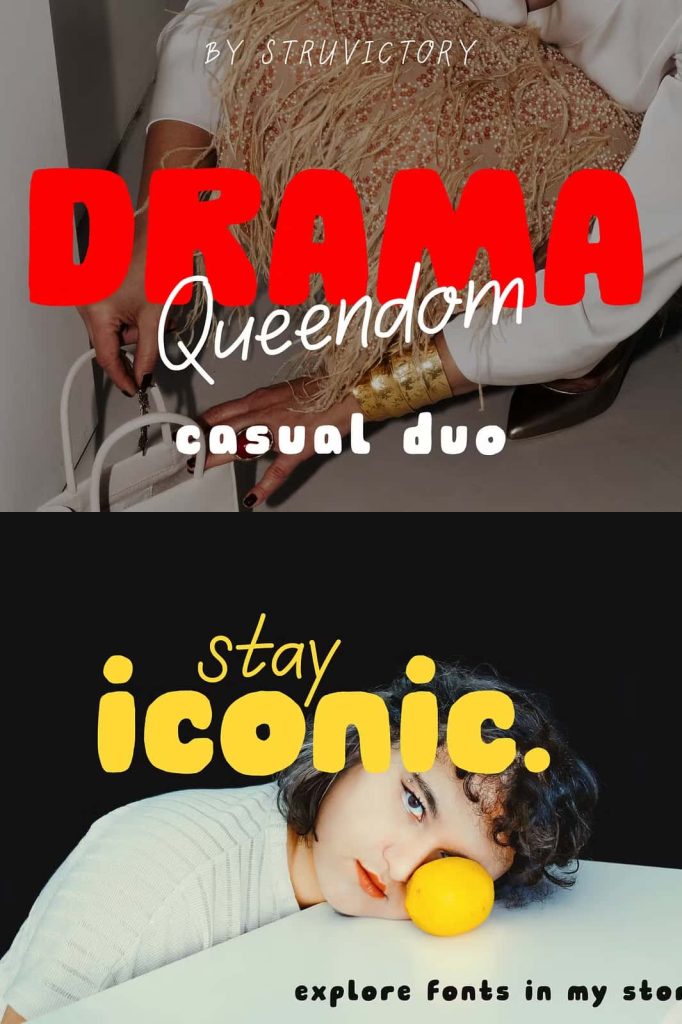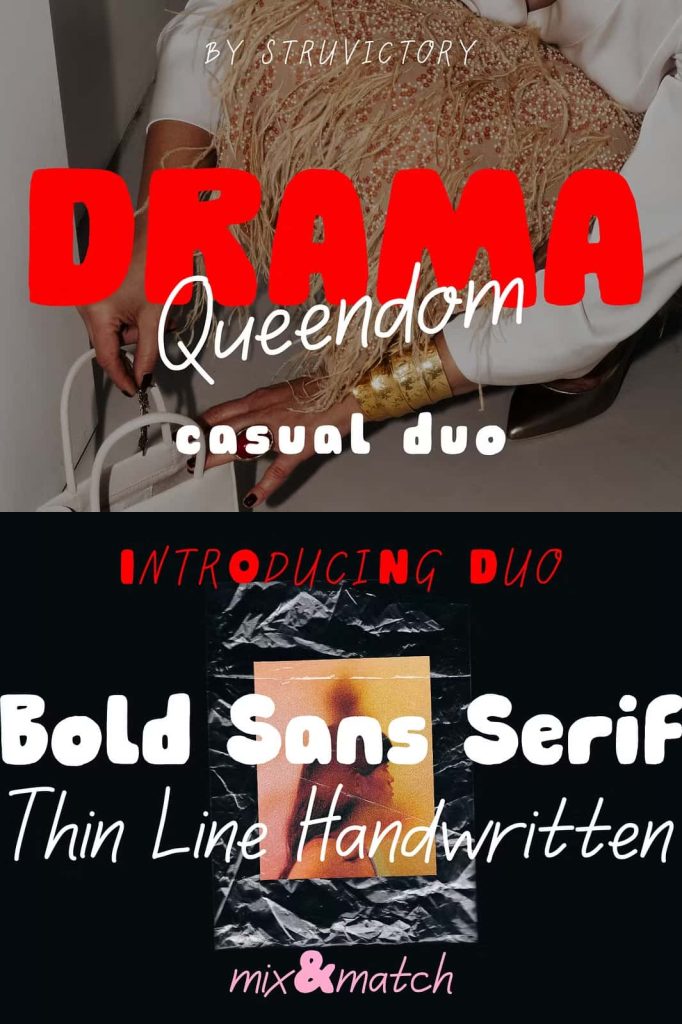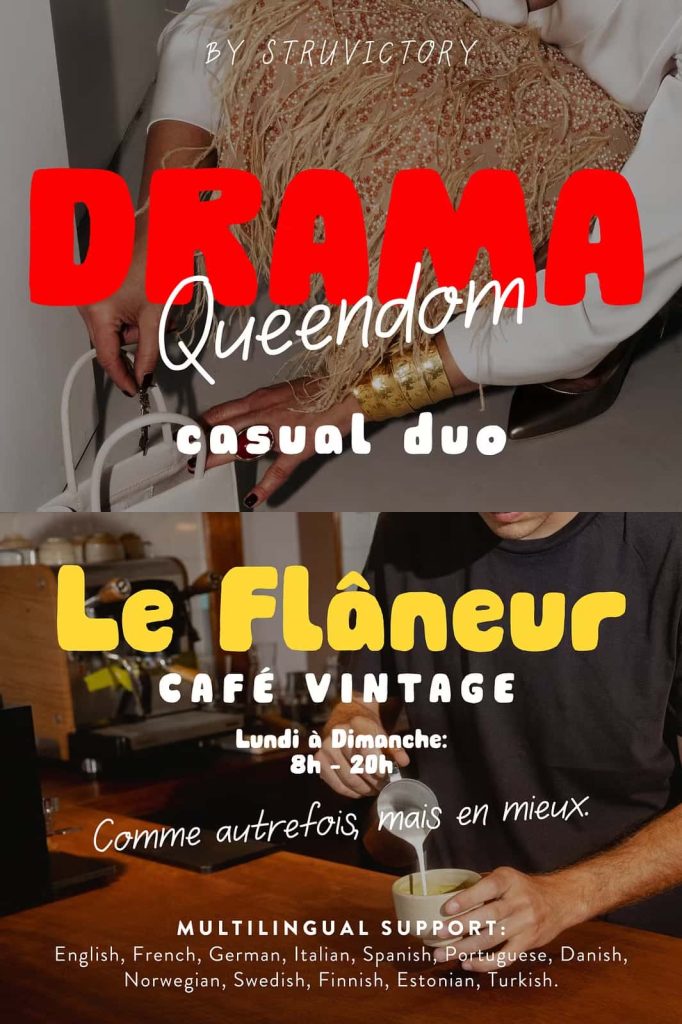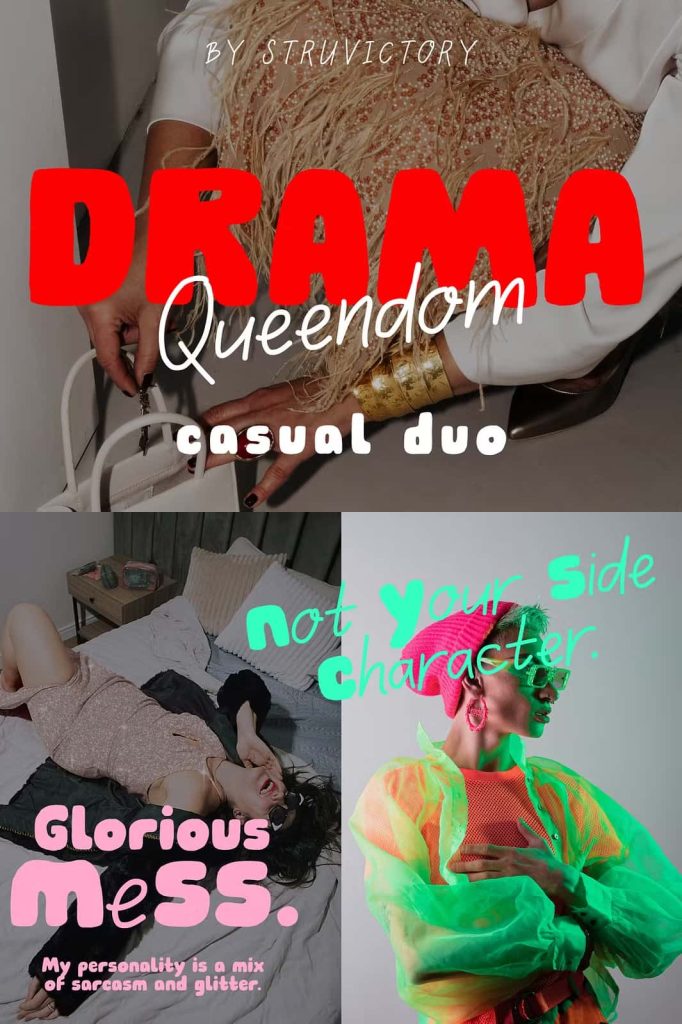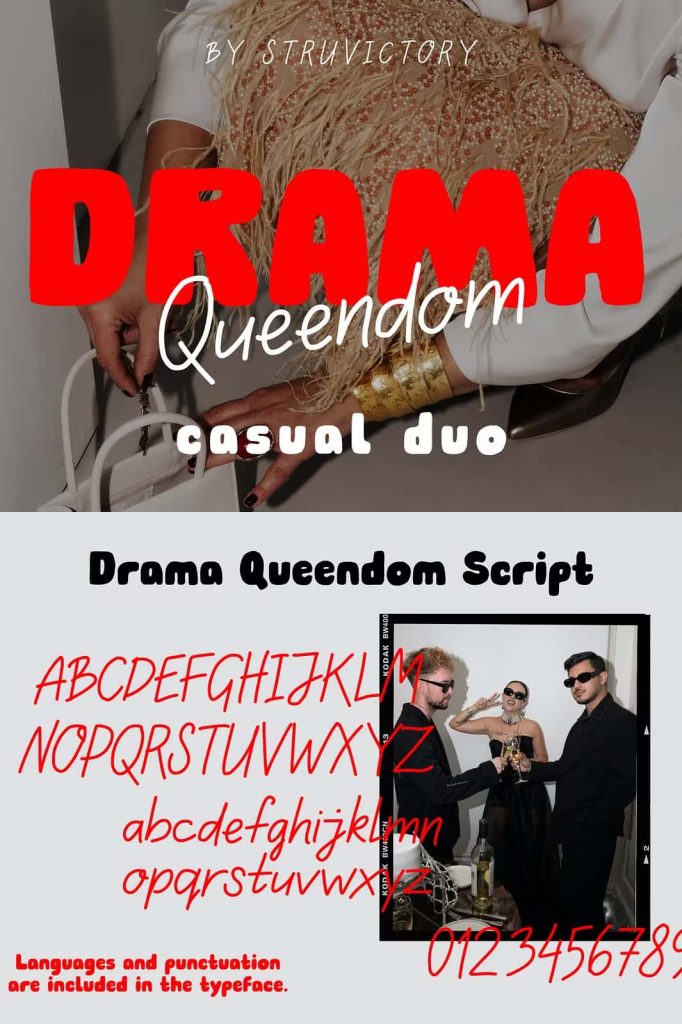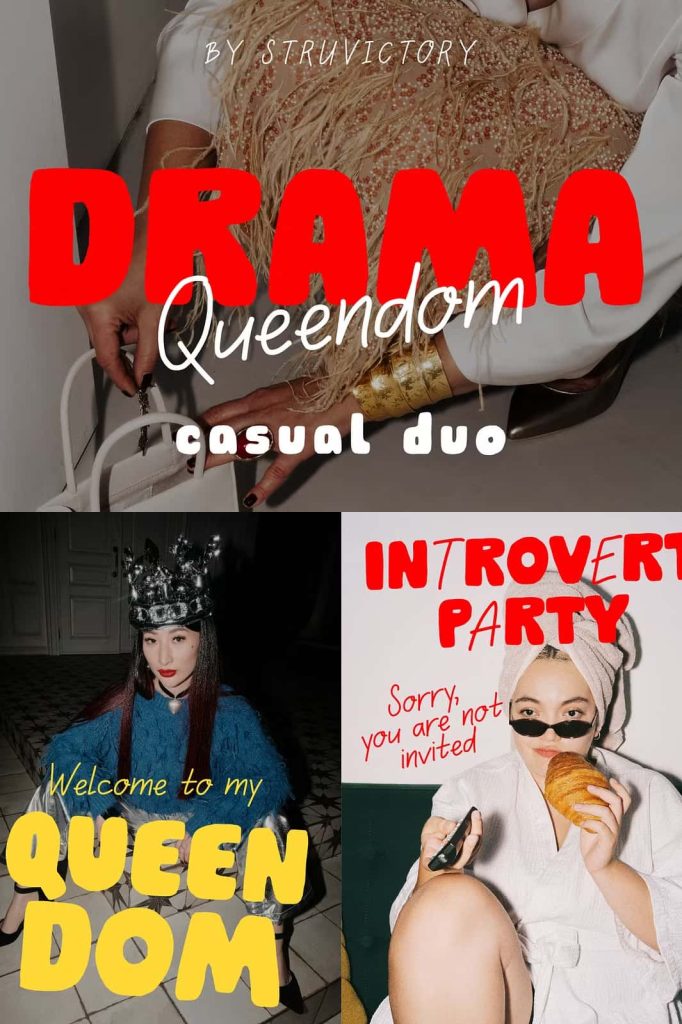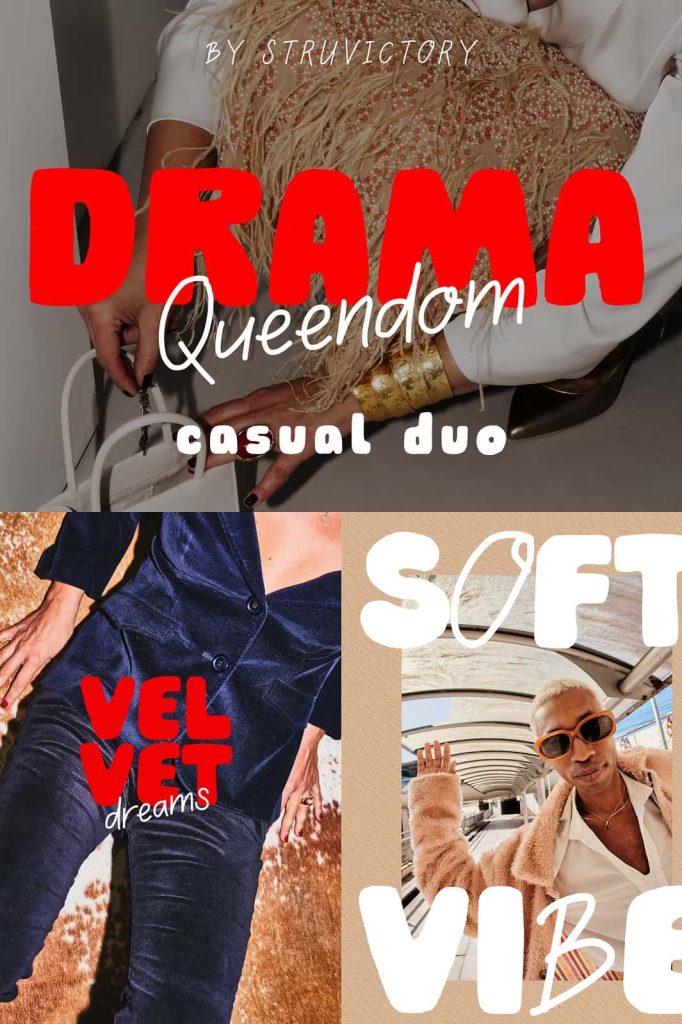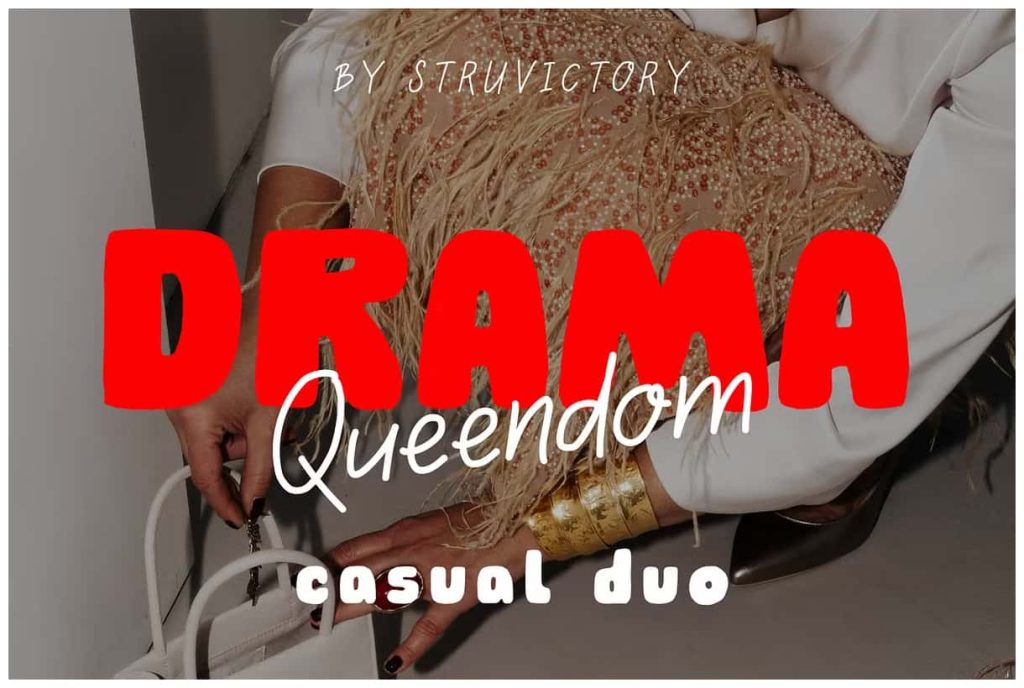
Drama Queendom is a bold font duo that balances power and playfulness. The chunky sans serif brings confidence and impact, while the thin handwritten style adds a touch of effortless personality. Together, they create a dynamic contrast perfect for fashion branding, posters, social media graphics, packaging, and anything that demands both attitude and charm